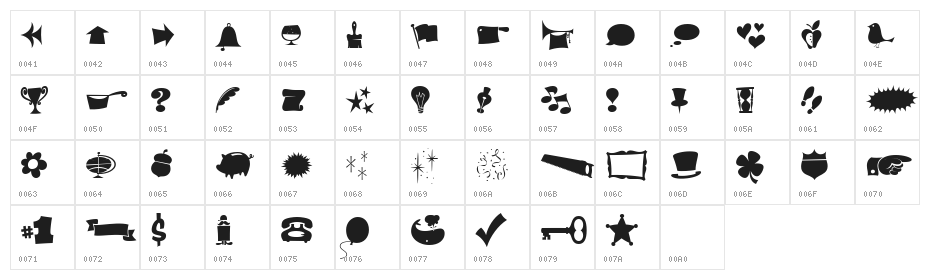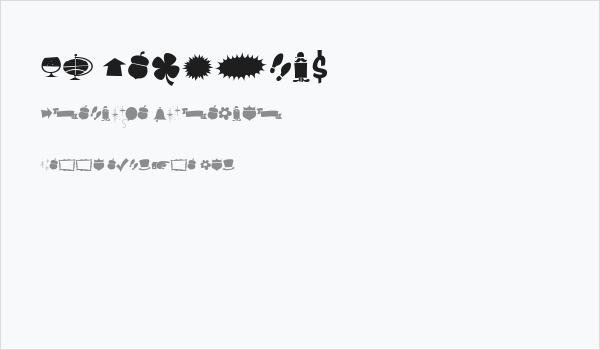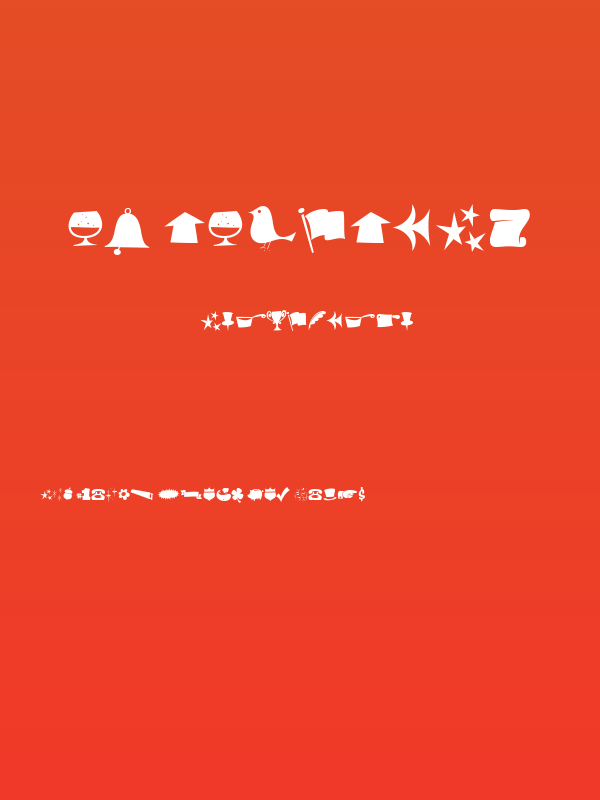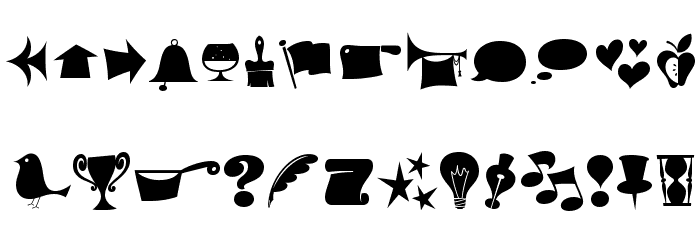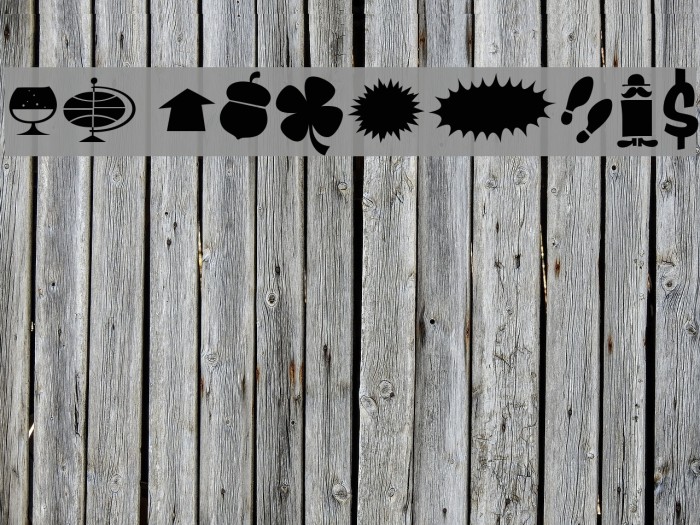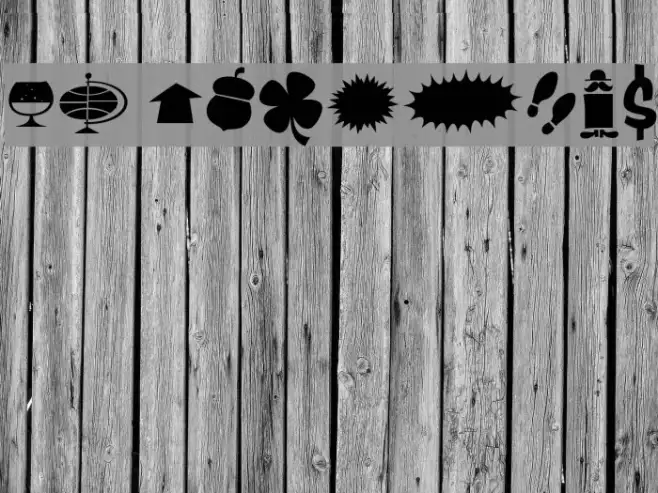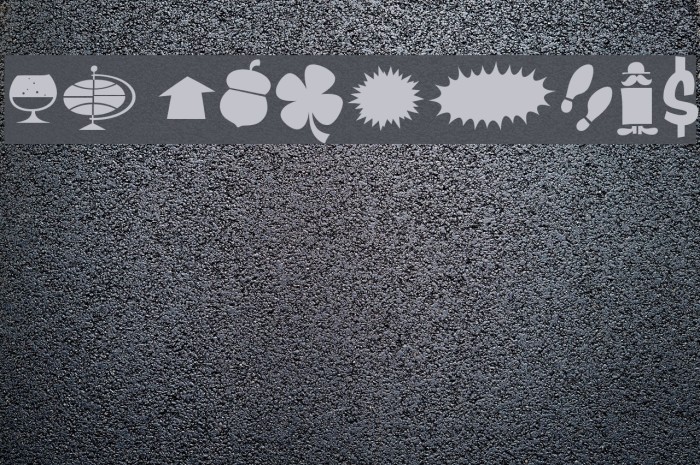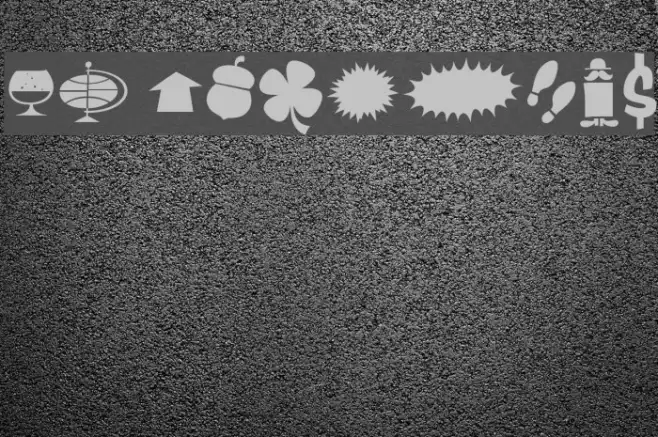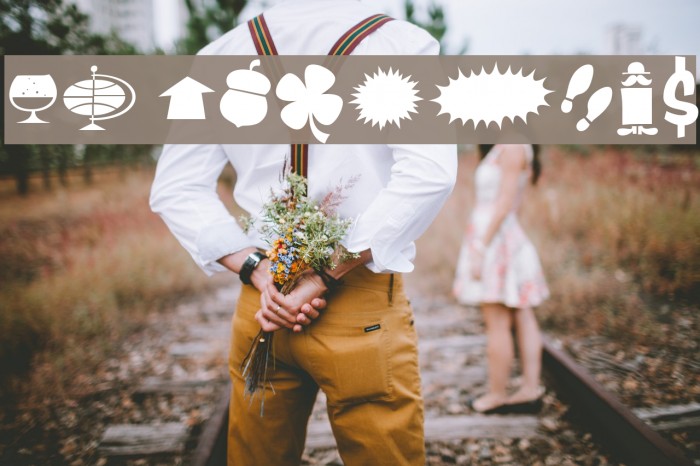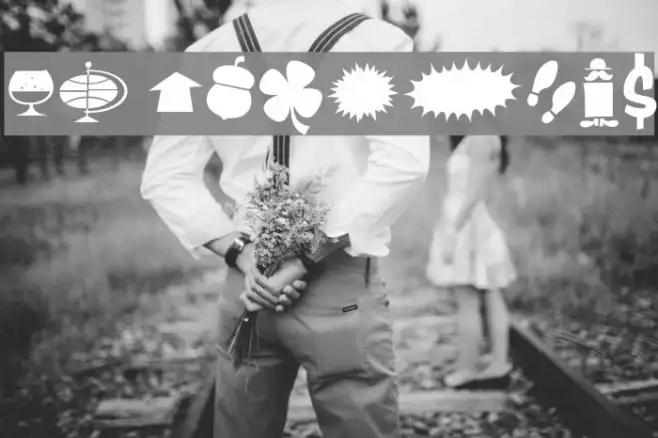
Ed Bengbats Font
Ed Bengbats Description
This collection features a diverse array of whimsical and playful symbols, each crafted with a unique silhouette style. The icons range from everyday objects like keys, phones, and trophies to more abstract shapes such as stars, arrows, and musical notes. Each symbol is bold and distinct, making them easily recognizable and suitable for various creative projects. The style is consistent throughout, with a focus on simplicity and bold outlines, allowing for easy integration into designs that require a touch of fun and creativity.
| Use Case | Logos, Illustrations, Educational Materials |
| Proposed Projects | Ideal for use in graphic design projects, educational materials, scrapbooking, and digital art where a whimsical and playful touch is desired. |